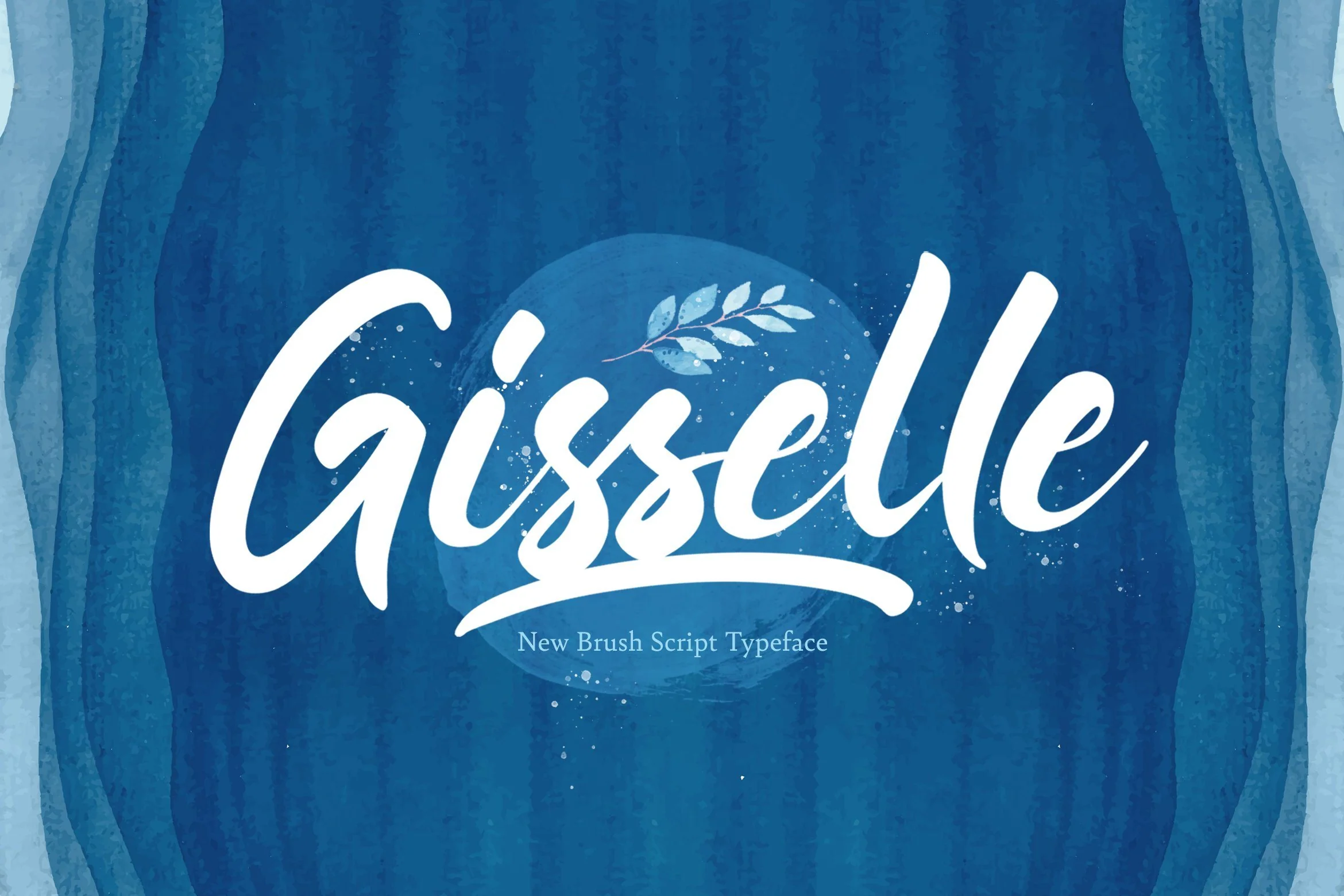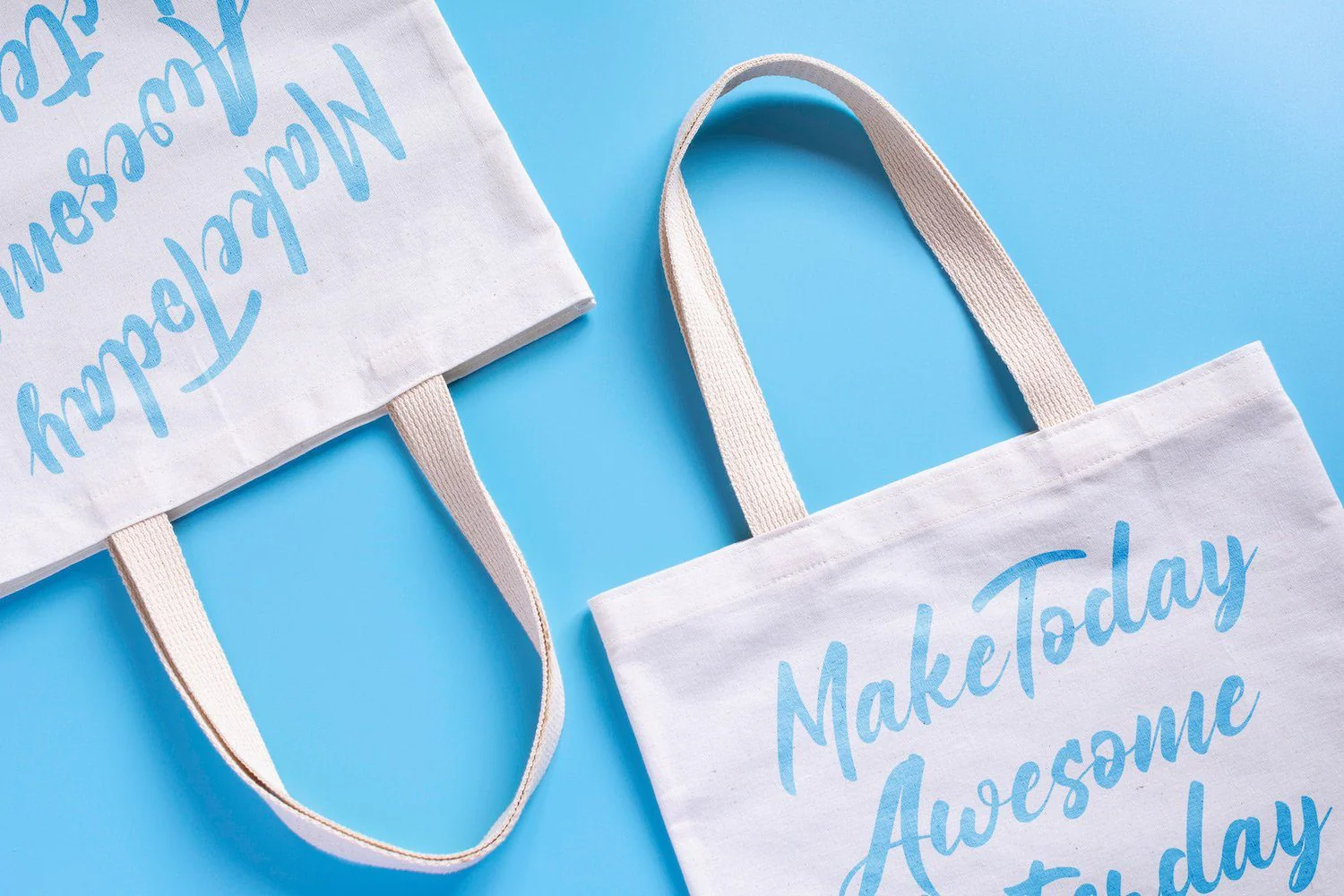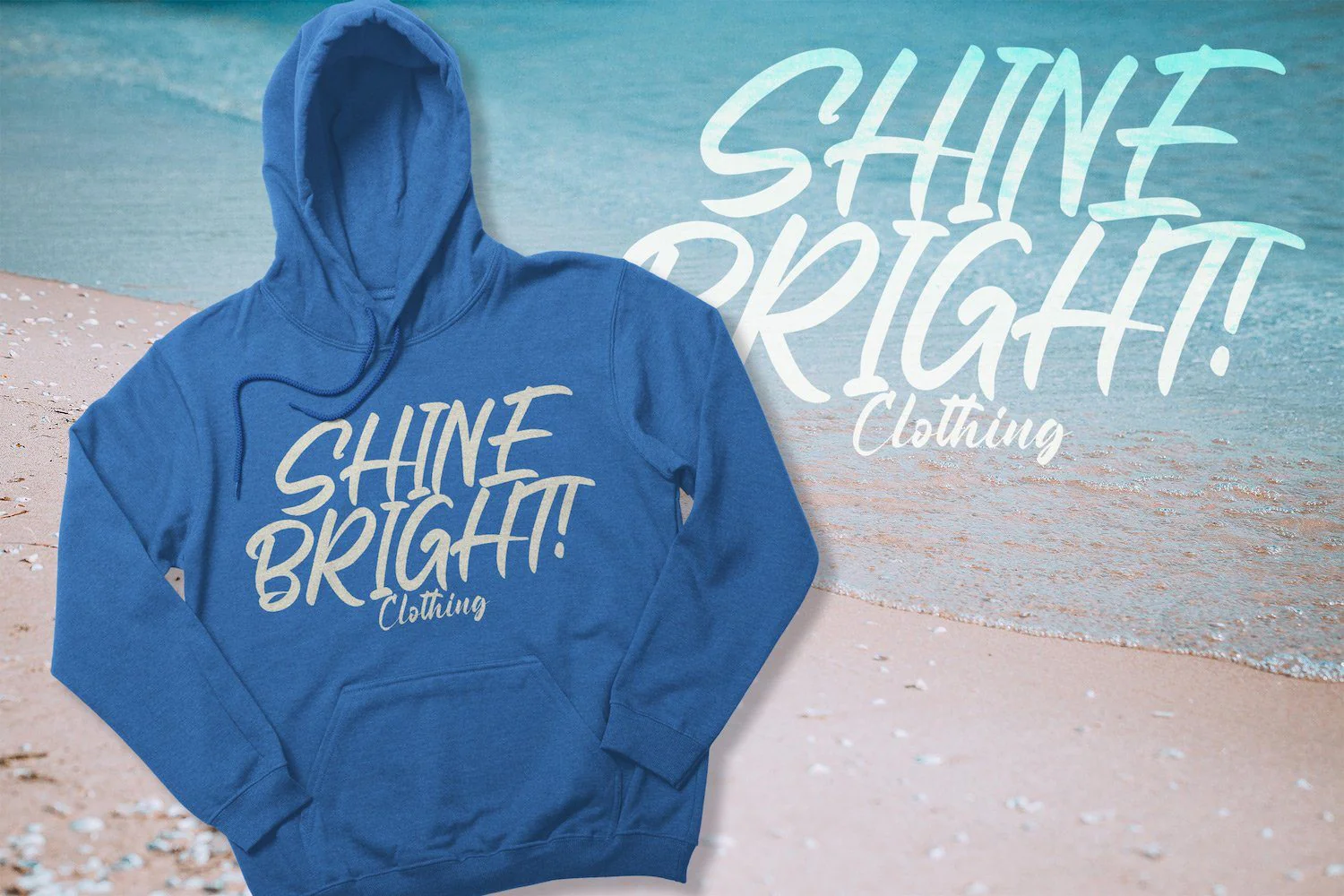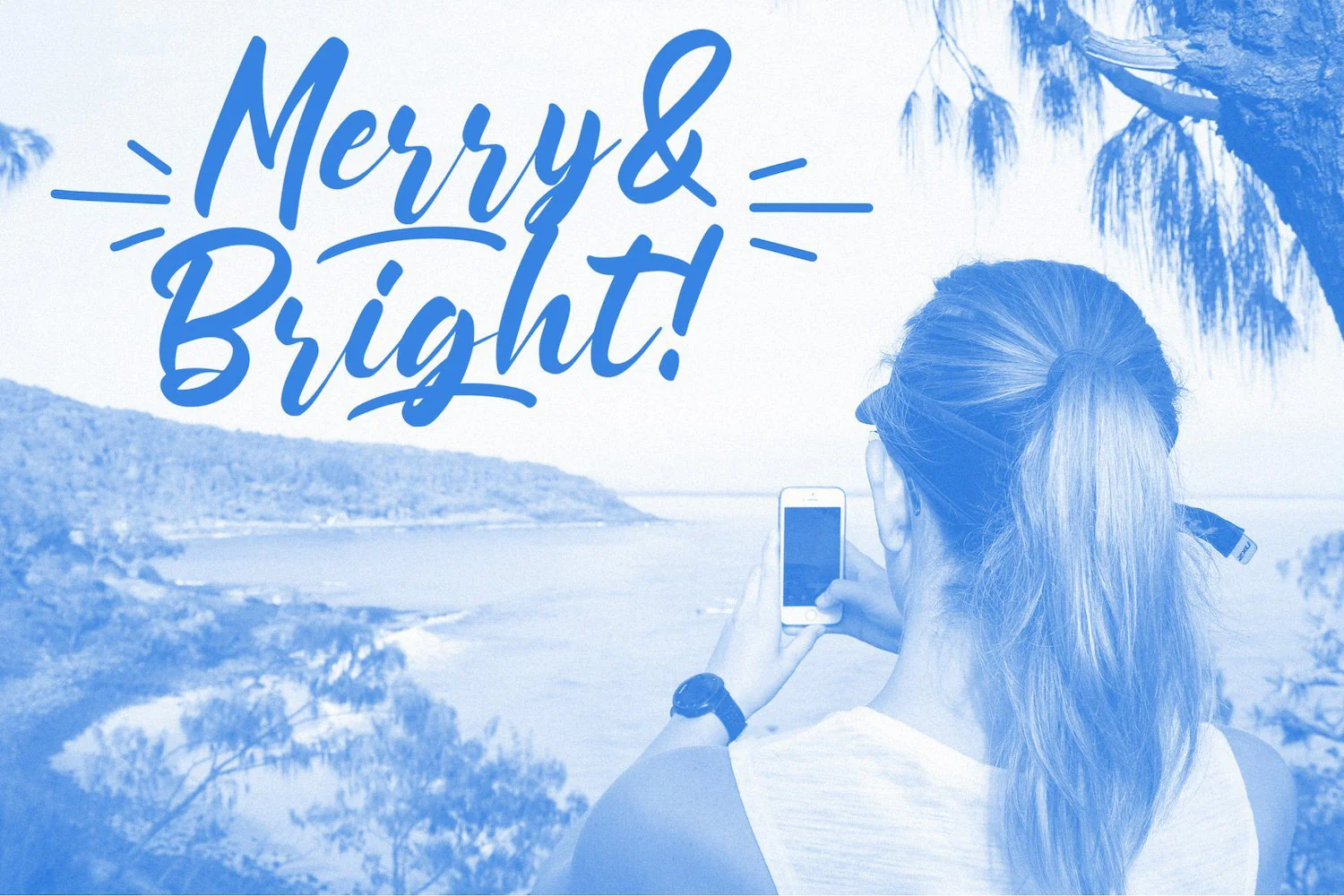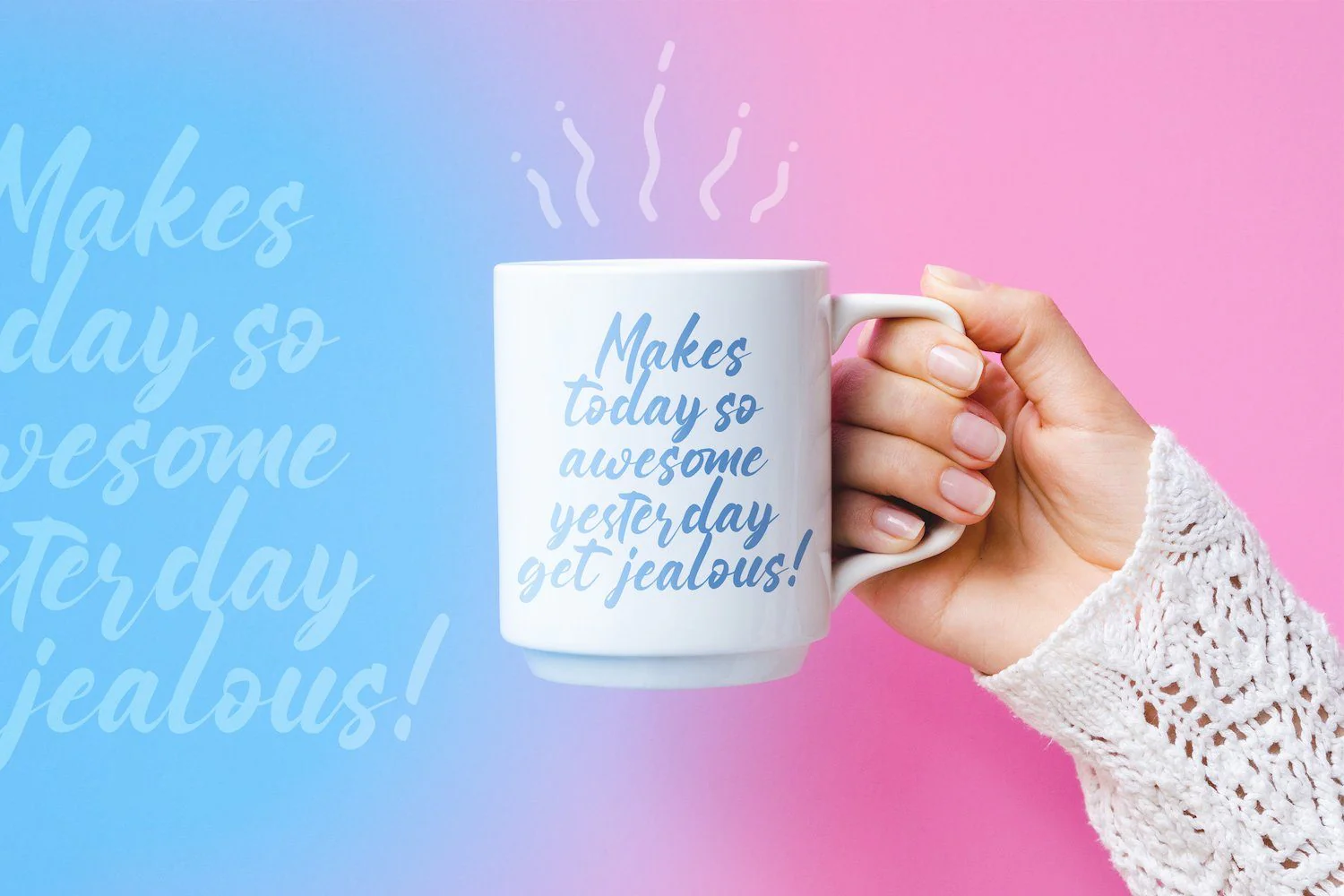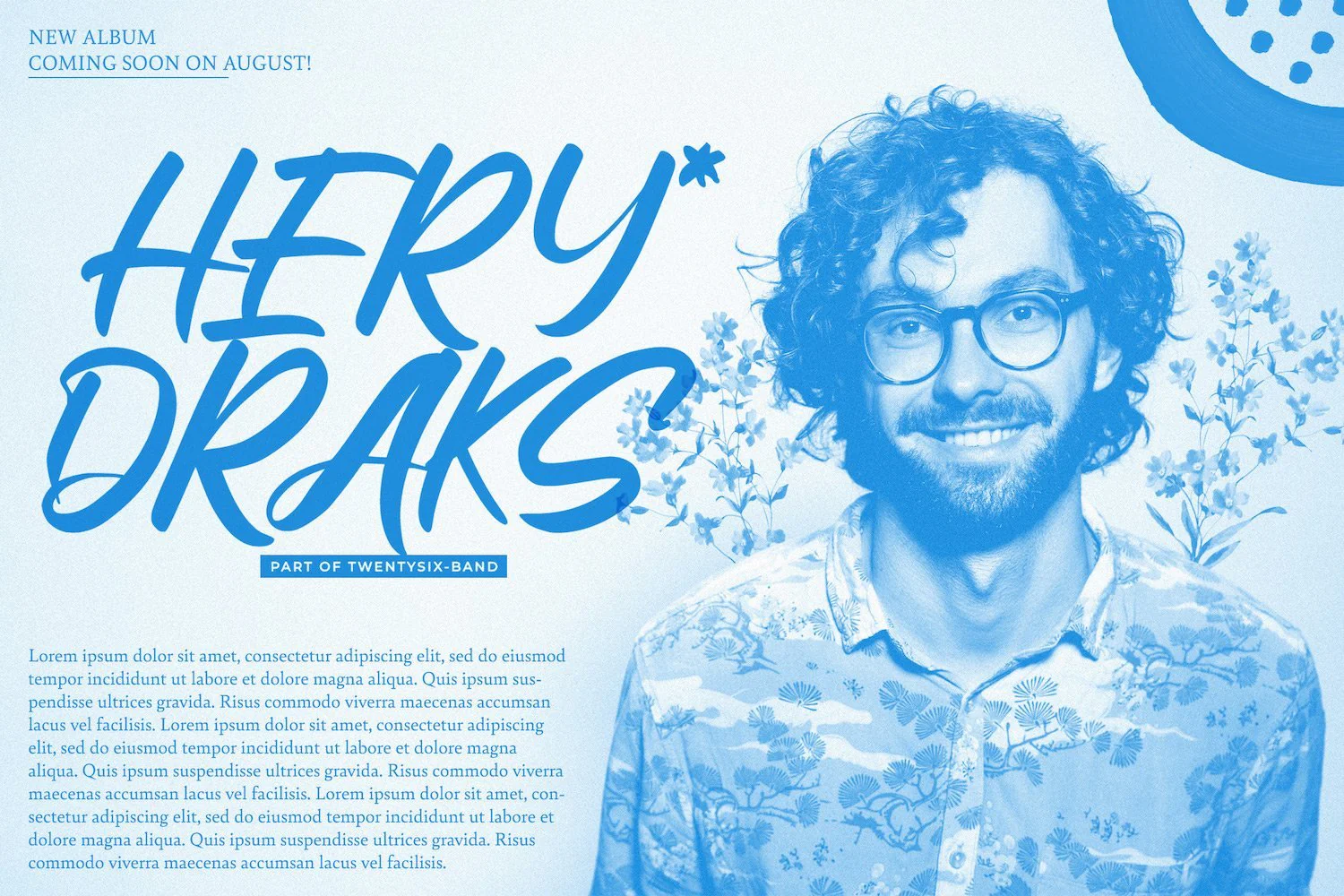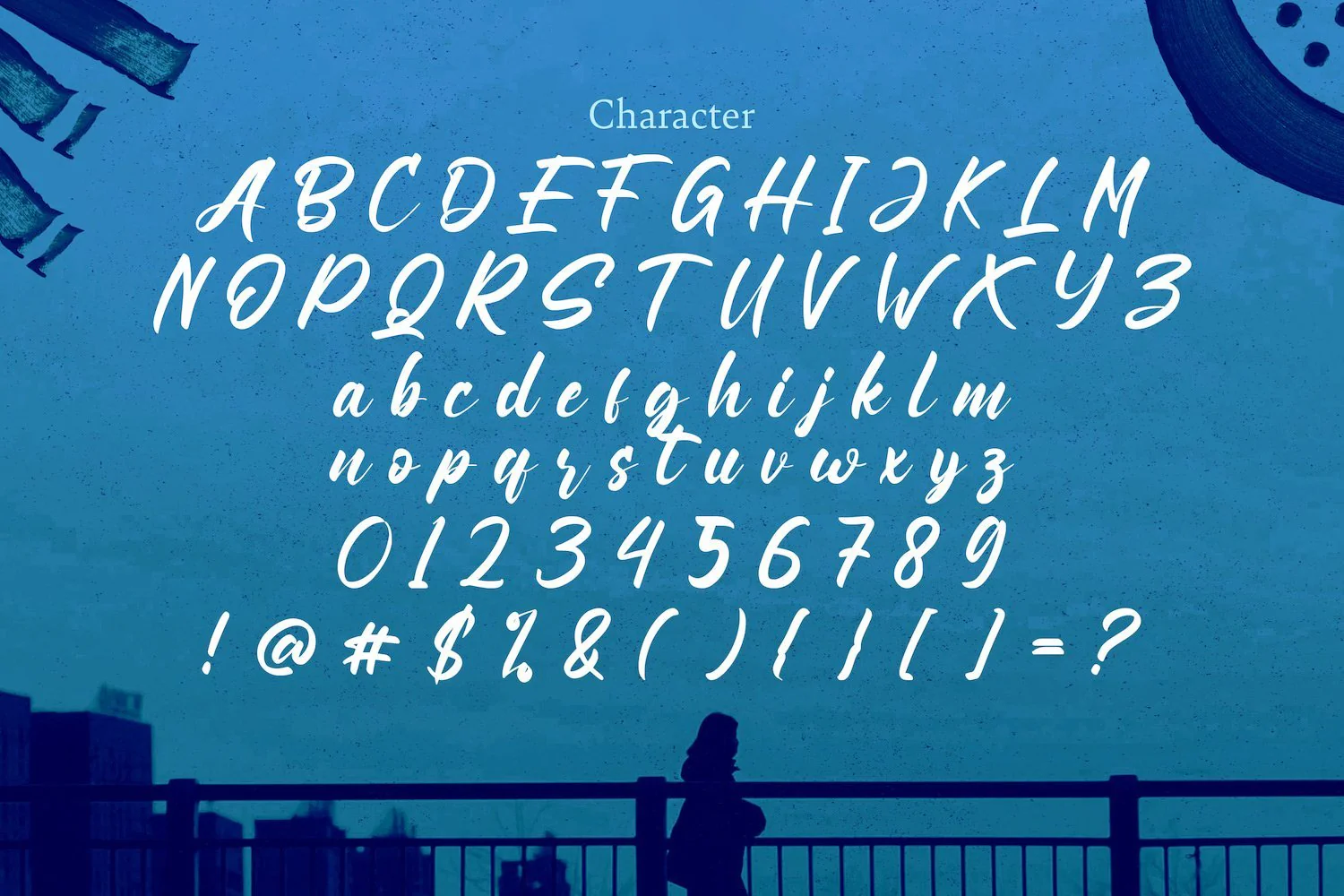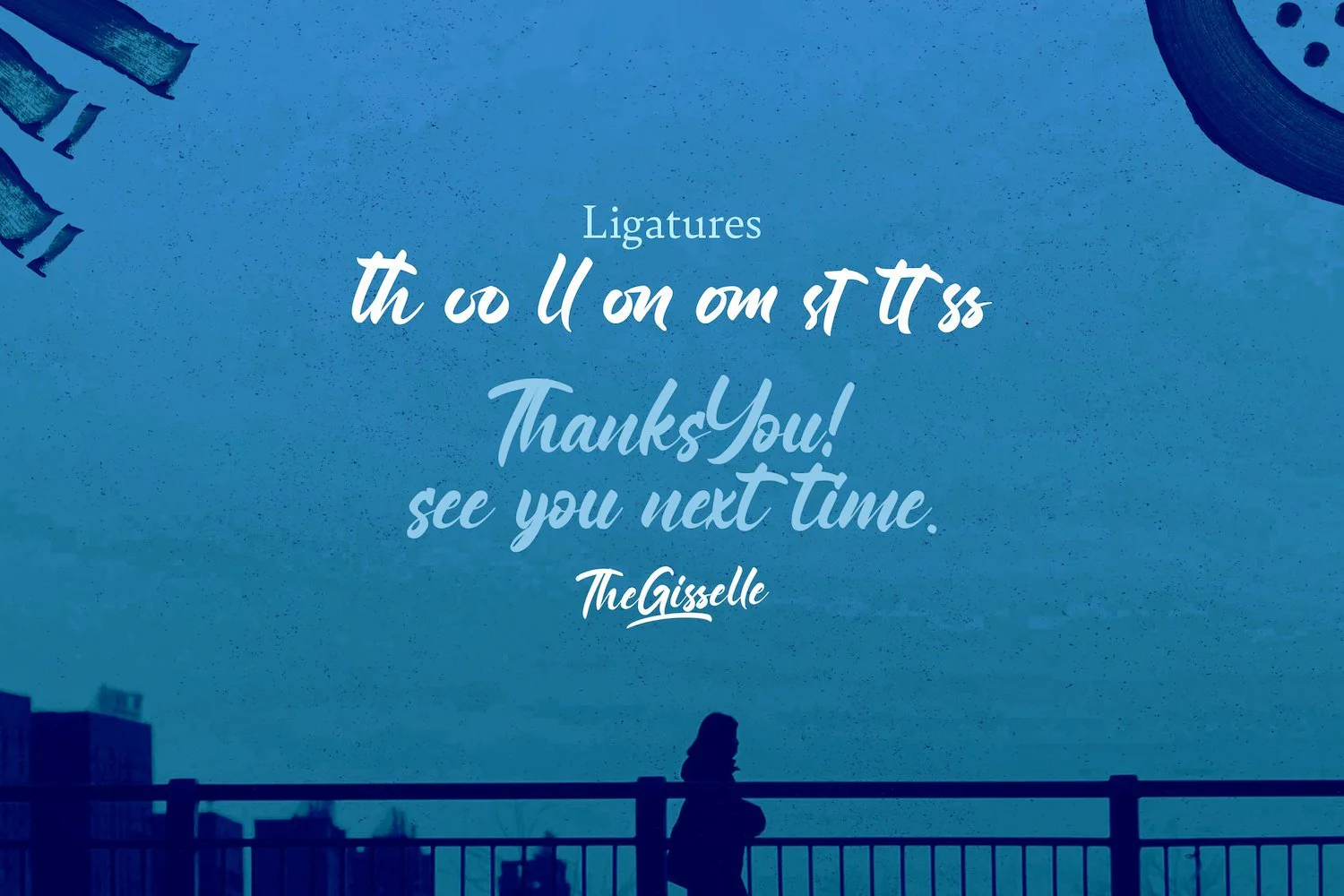
Gisselle - Bold Script Font
Introducing Gisselle - Bold Script Font
Gisselle is a flowing handwritten font, described by an elegant touch, perfect for your favorite projects. Fall in love with its incredibly distinct and timeless style and use it to create spectacular designs!
Introducing Gisselle - Bold Script Font
Gisselle is a flowing handwritten font, described by an elegant touch, perfect for your favorite projects. Fall in love with its incredibly distinct and timeless style and use it to create spectacular designs!